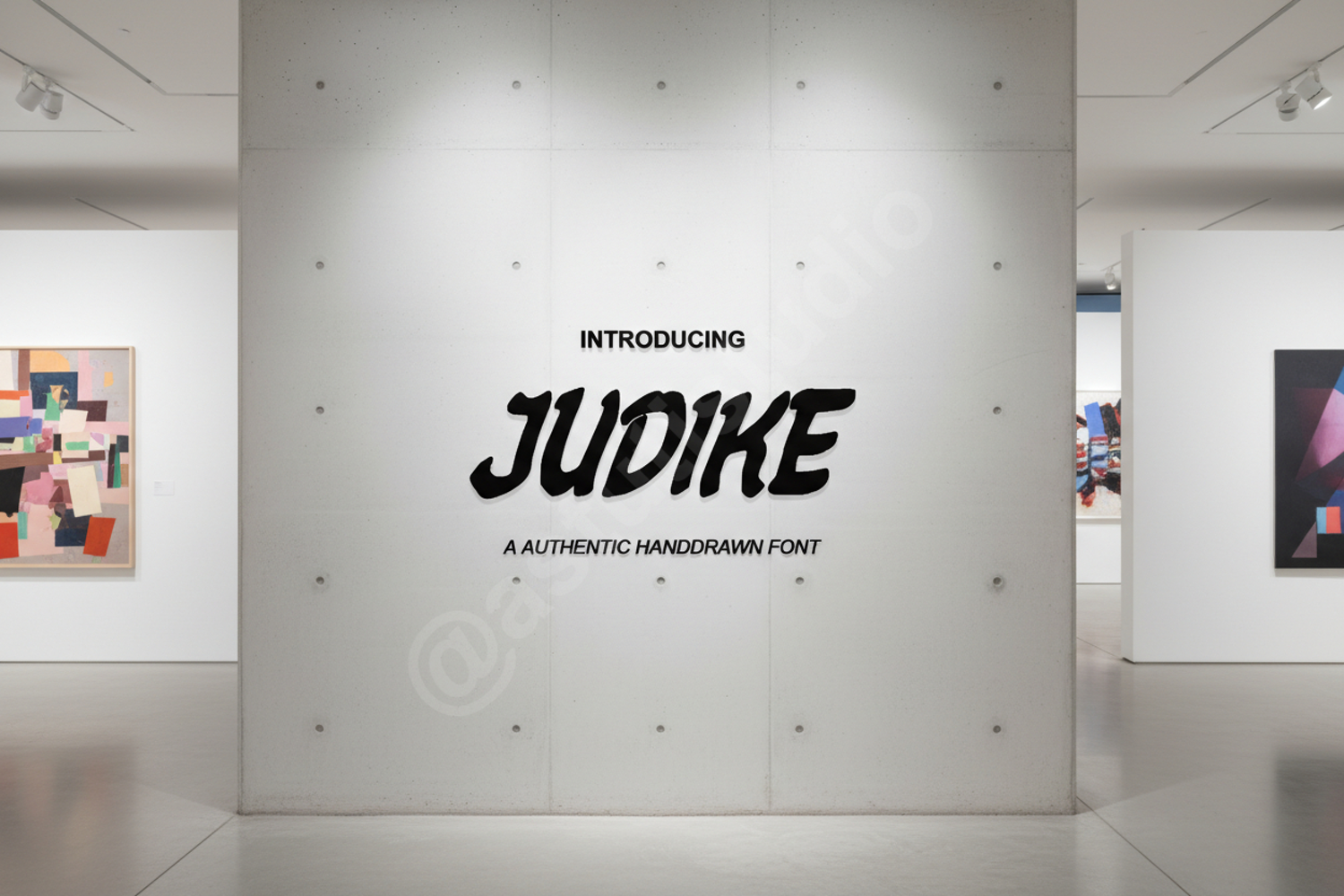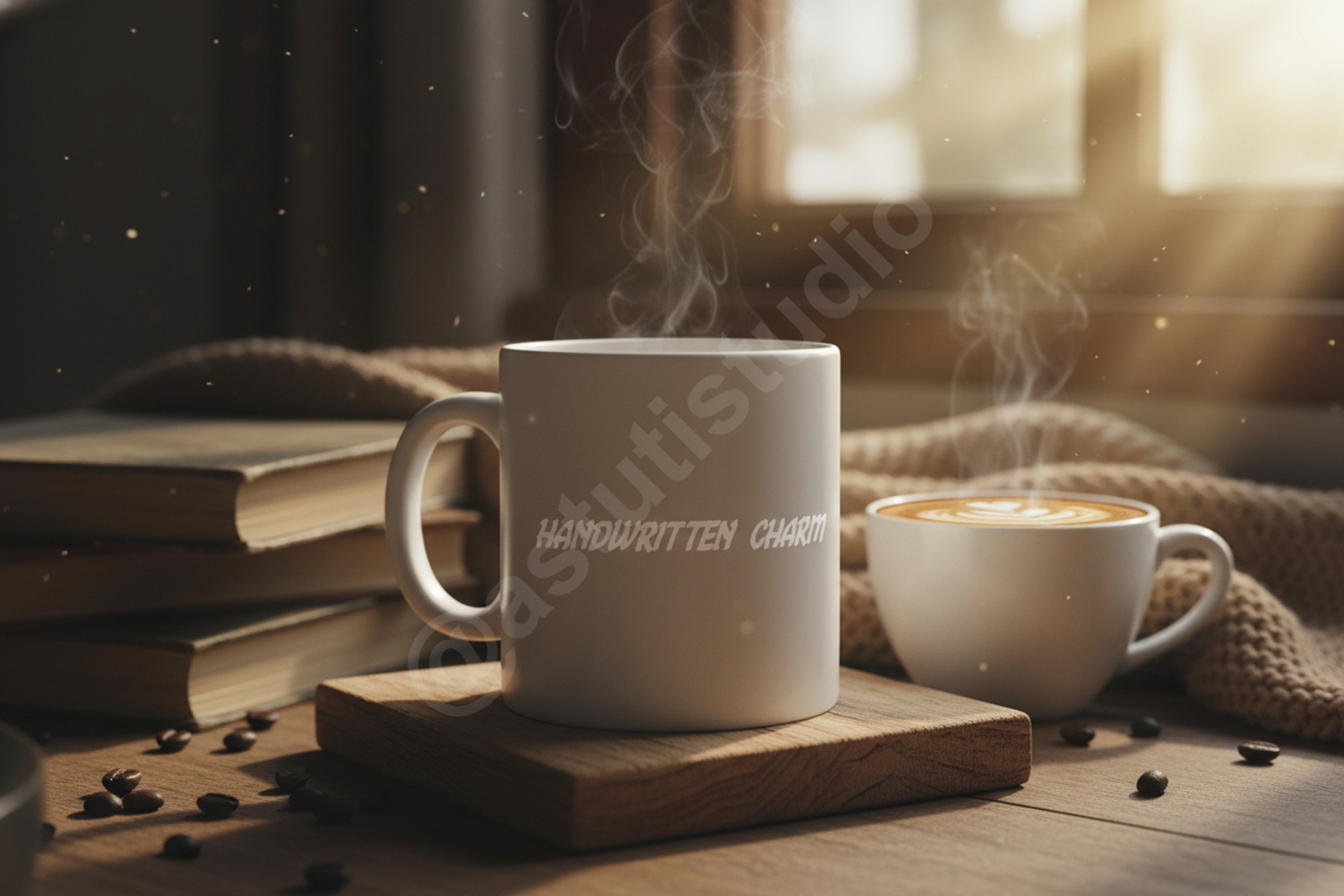
Judike - Elegant Modern Serif Font
Judike
Judike is a premium serif font meticulously crafted to bring a touch of sophistication and timeless elegance to your creative projects. With its clean lines and refined proportions, Judike strikes the perfect balance between classic letterforms and contemporary design, making it an essential addition to any designer's toolkit. Whether you are aiming for a minimalist aesthetic or a bold statement, this font provides the versatility needed to excel.
- Full set of uppercase and lowercase letters
- Comprehensive numbers and punctuation
- Extensive multilingual support for global accessibility
- Luxury Branding: Create high-end visual identities that command attention and trust.
- Wedding Stationery: Add a graceful and romantic touch to invitations, menus, and place cards.
- Editorial Design: Perfect for sophisticated magazine layouts, book covers, and headlines.
- Product Packaging: Elevate your brand's physical presence with refined typography.
- Social Media: Design aesthetic and professional graphics for Instagram, Pinterest, and more.